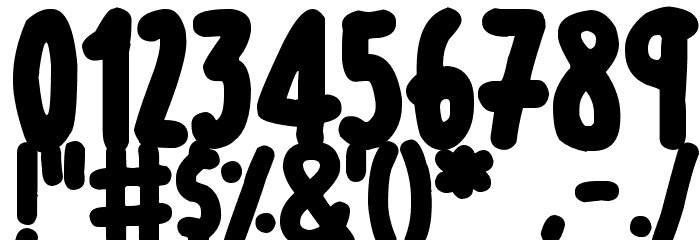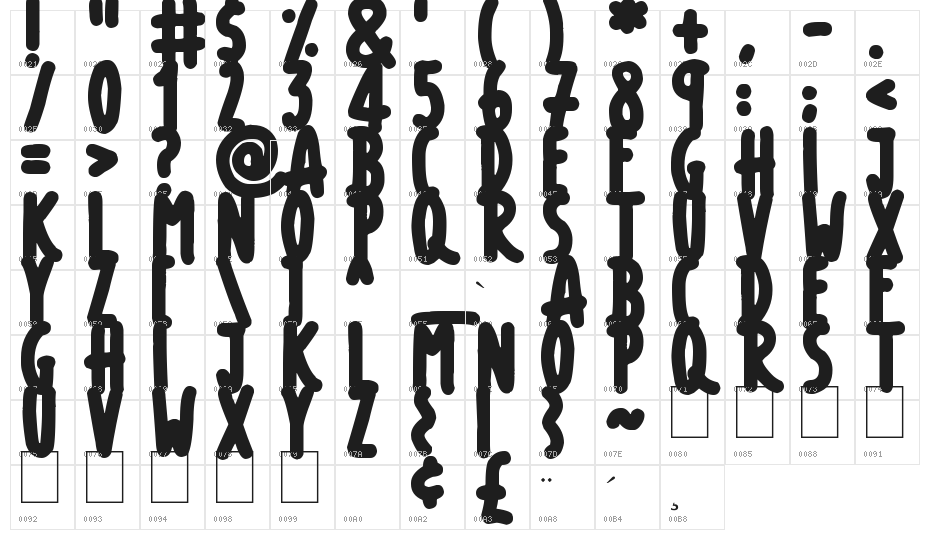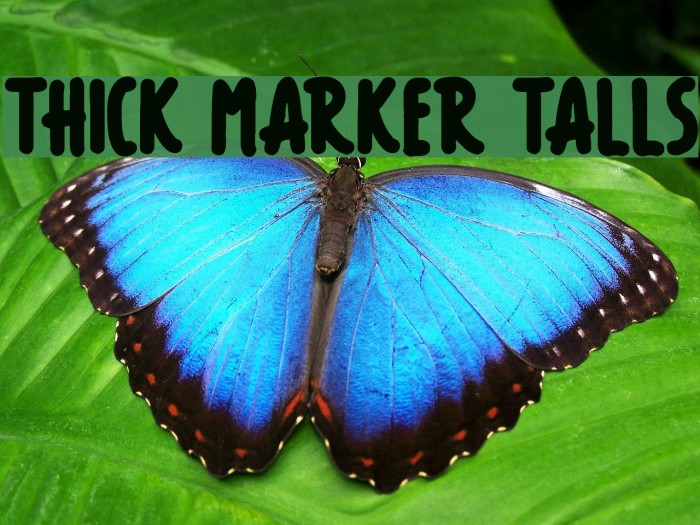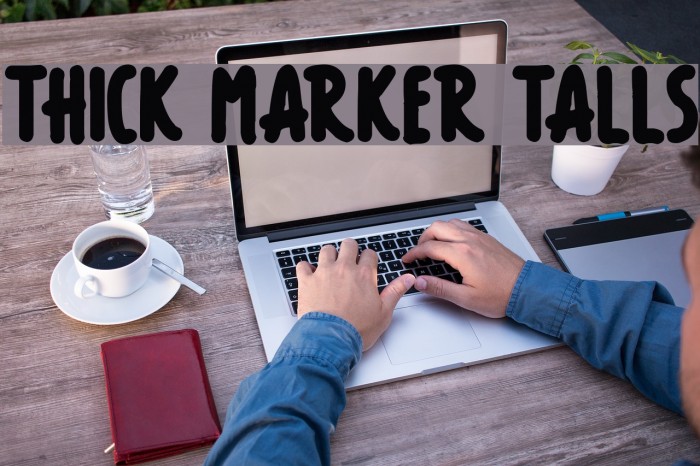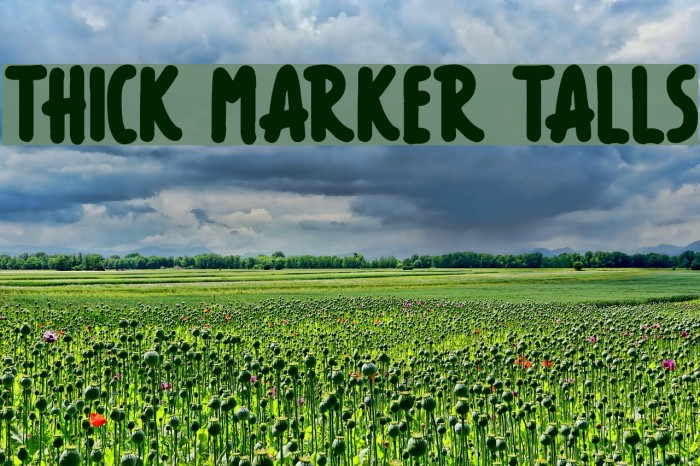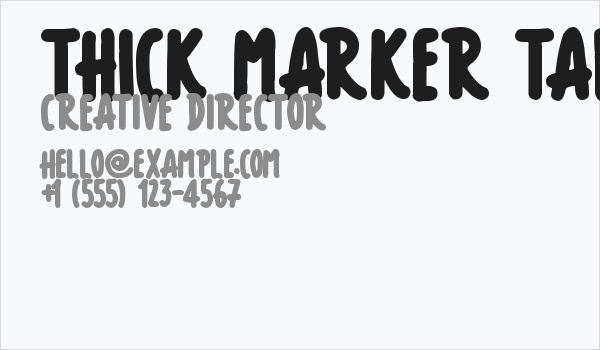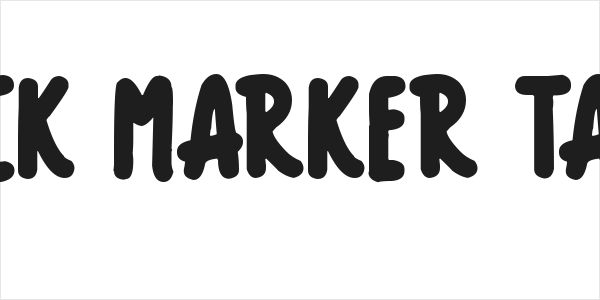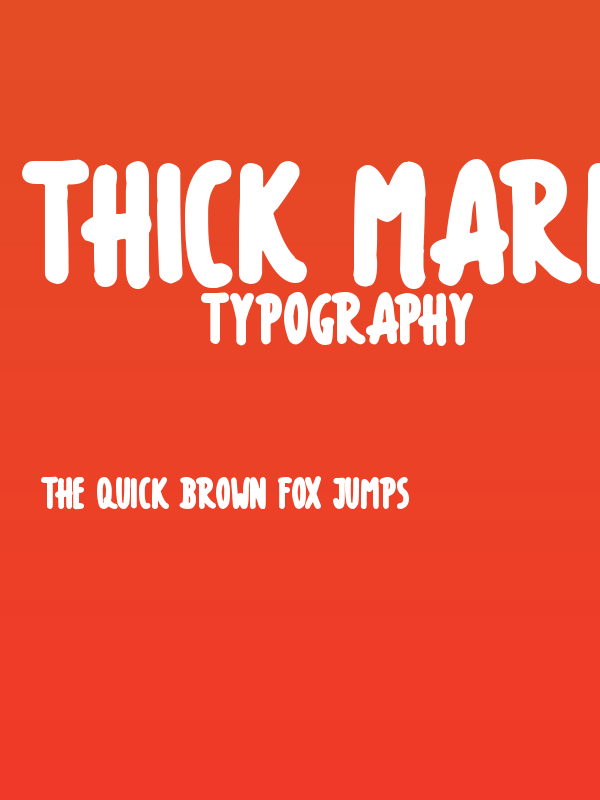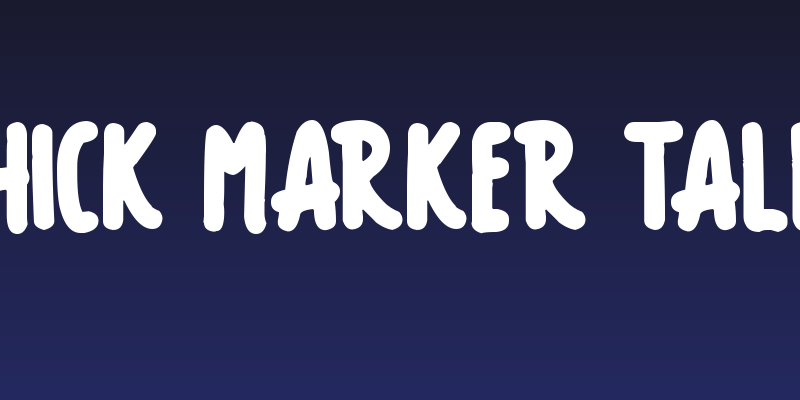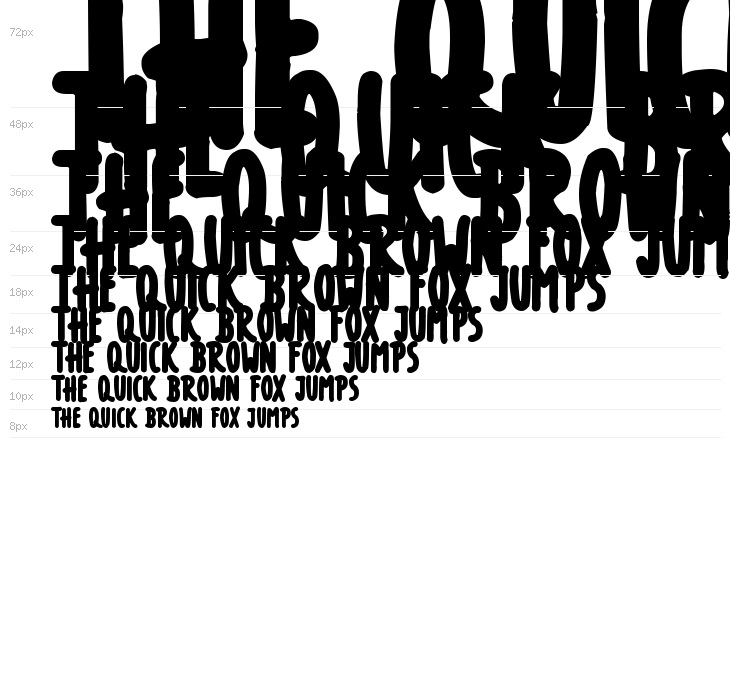
Thick Marker Talls Font
Thick Marker Talls Description
This font features bold, rounded characters with a playful and informal style, reminiscent of hand-drawn marker lettering. The letters are thick and uniform, providing a strong visual impact. The uppercase and lowercase letters maintain a consistent height, contributing to a cohesive appearance. The numbers and special characters share the same boldness, ensuring readability and consistency across different uses. This font's design is ideal for projects that require a casual and approachable feel.
| Overall Style | Playful, Informal |
| Use Case | Headlines, Posters, Logos |
| Proposed Projects | Perfect for children's books, posters, logos, and any design needing a fun, casual touch. |